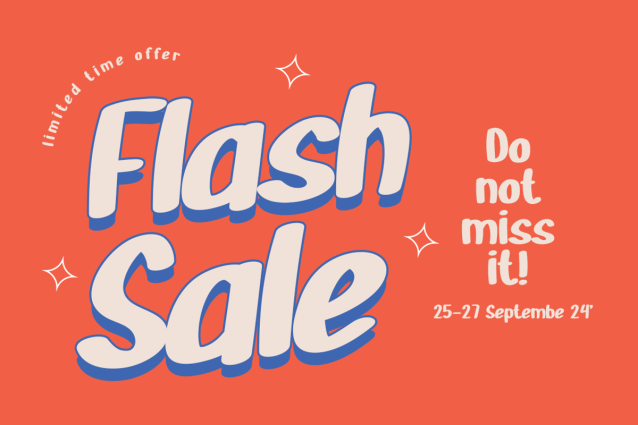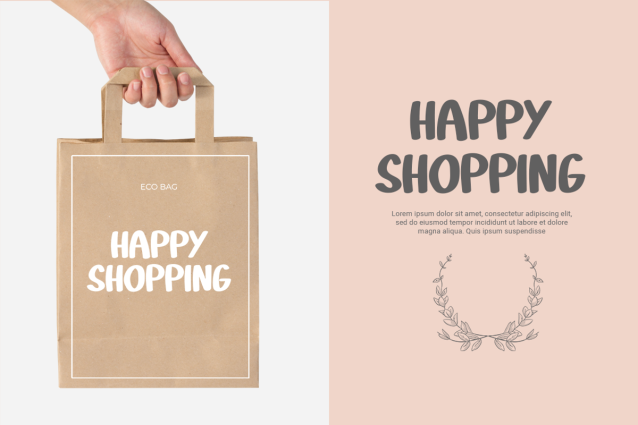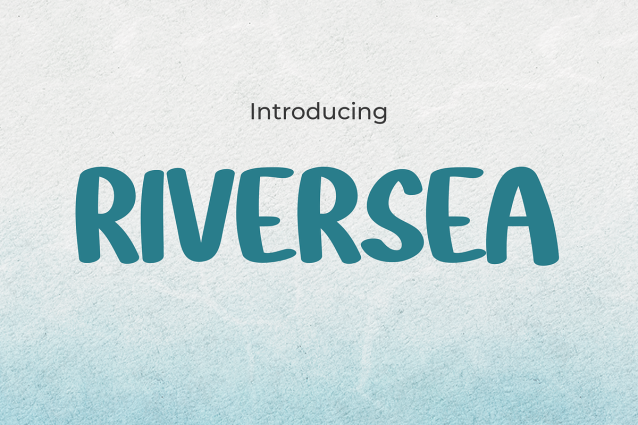
Riversea Font
Riversea Font is a perfect companion for your brand products, adding a cheerful and colorful touch to your visual identity. With its playful demeanor and captivating charm, Riversea Font brings an aura of joy and excitement to every design it graces. Whether you’re crafting packaging, advertising materials, or social media content, Riversea Font effortlessly infuses your brand with a lively personality that resonates with your audience. Let Riversea Font be the wave of creativity that propels your brand to new heights, making waves in the sea of competition with its irresistible charm